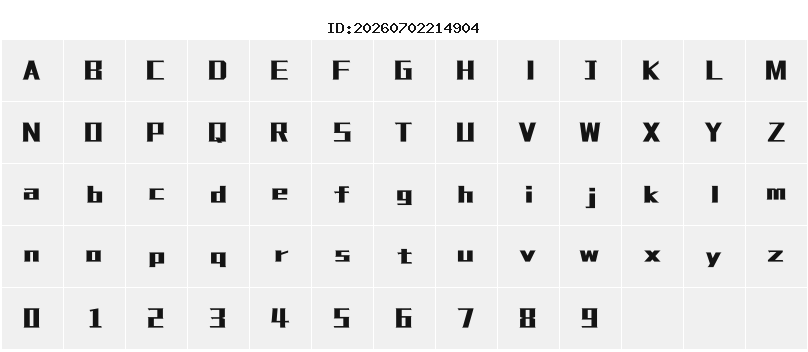
040-上首星芒体 Preview
• Font Name: 040-上首星芒体
• Font ID: 040-SSXingMangTi:Version 6.00
• Full Font Name: 040-上首星芒体
• Version: Version 6.00 July 28, 2021
• PostScript Name: 040-SSXingMangTi
• Character Count: 7569
• Manufacturer: 上首造字
About 040-上首星芒体.ttf
040-上首星芒体.ttf is a modern, elegant sans-serif font designed for ultimate readability and visual harmony. Perfect for branding, headlines, web design, and print materials.